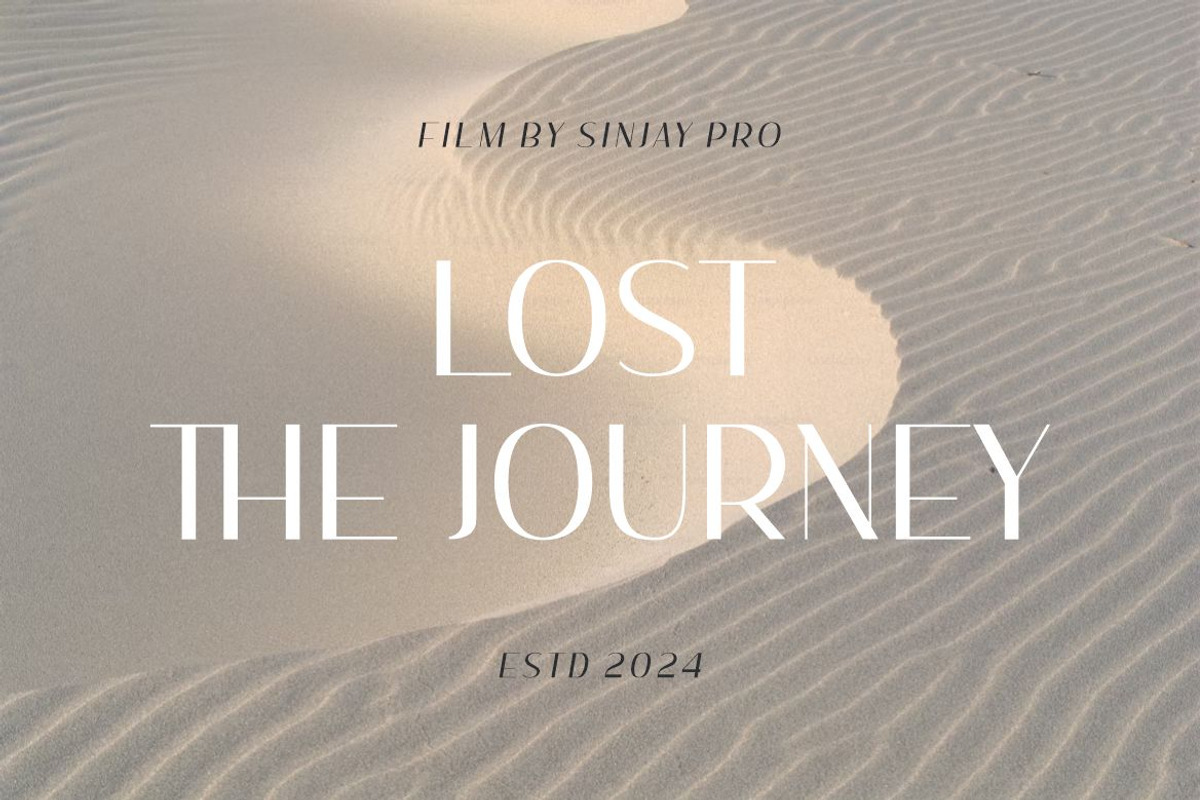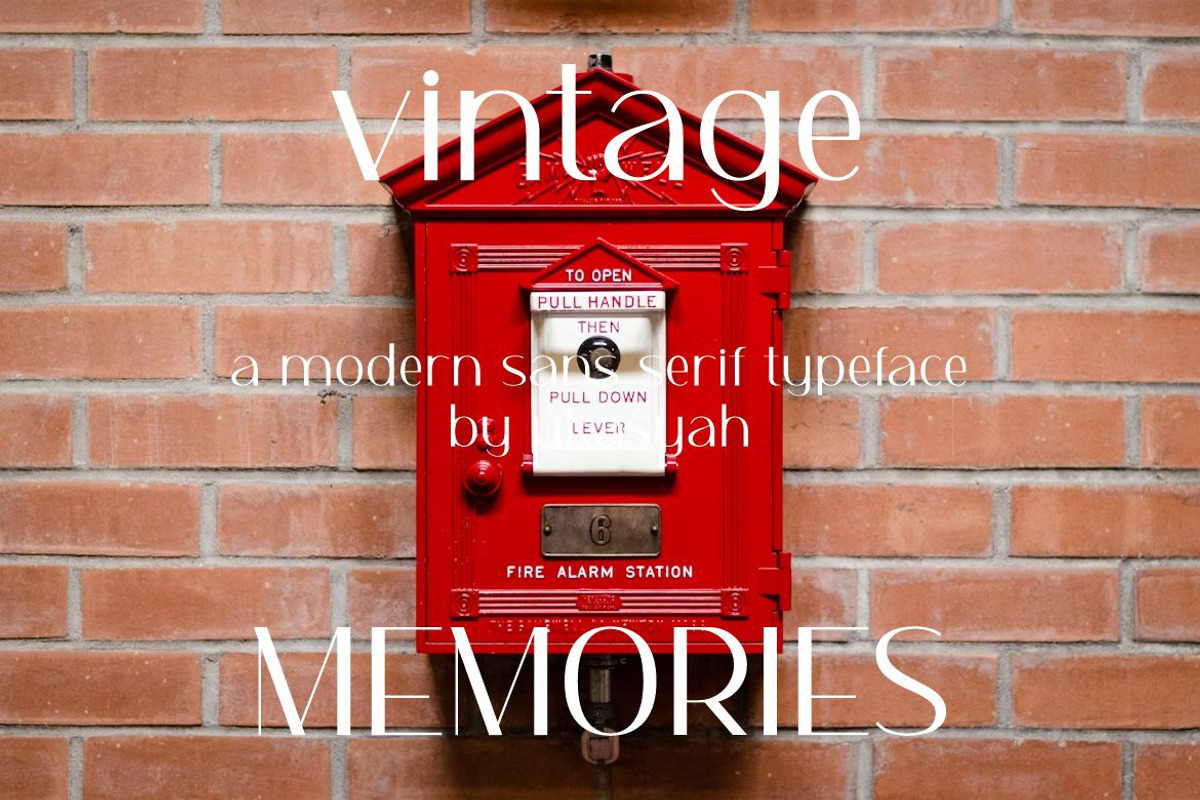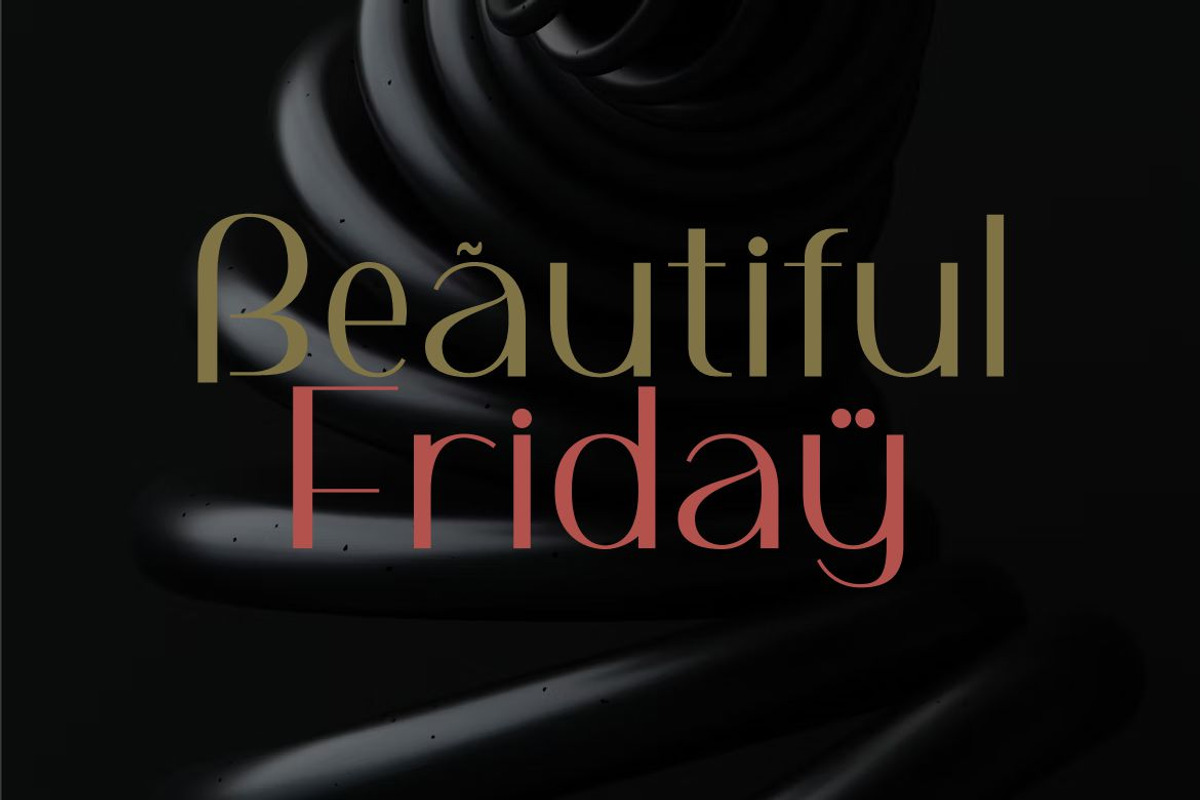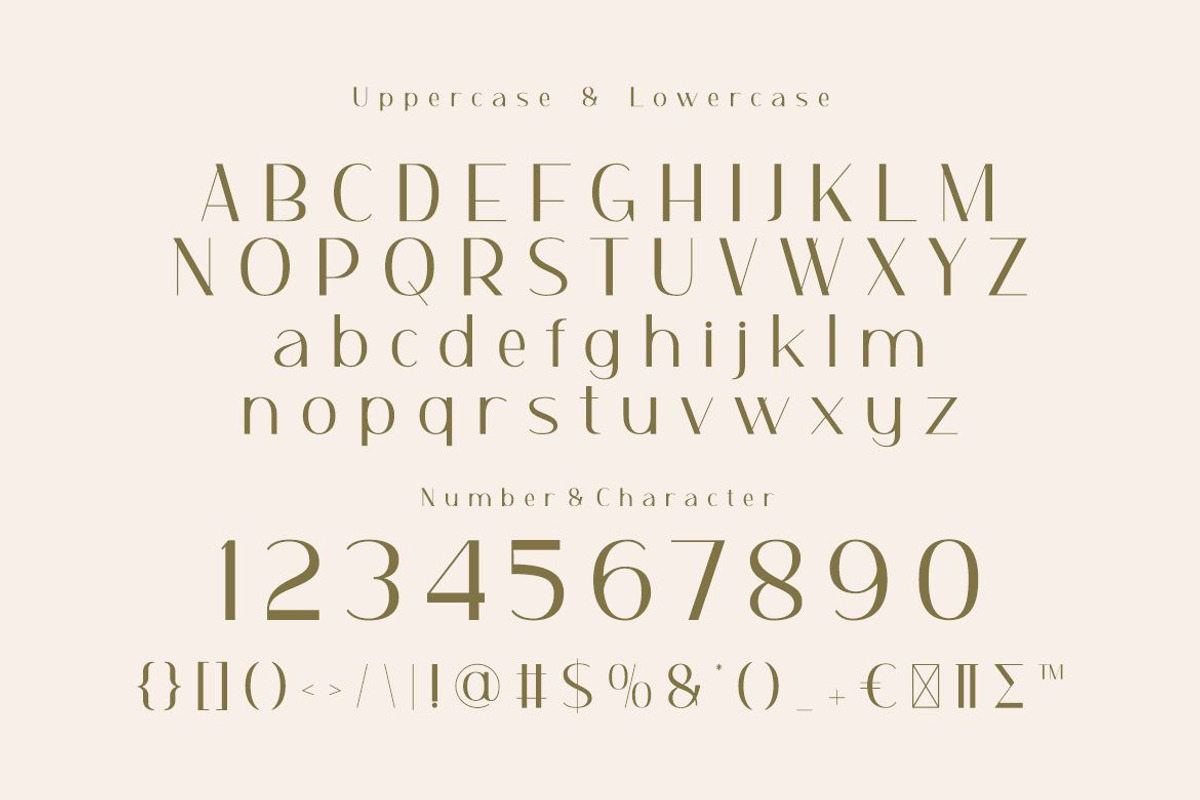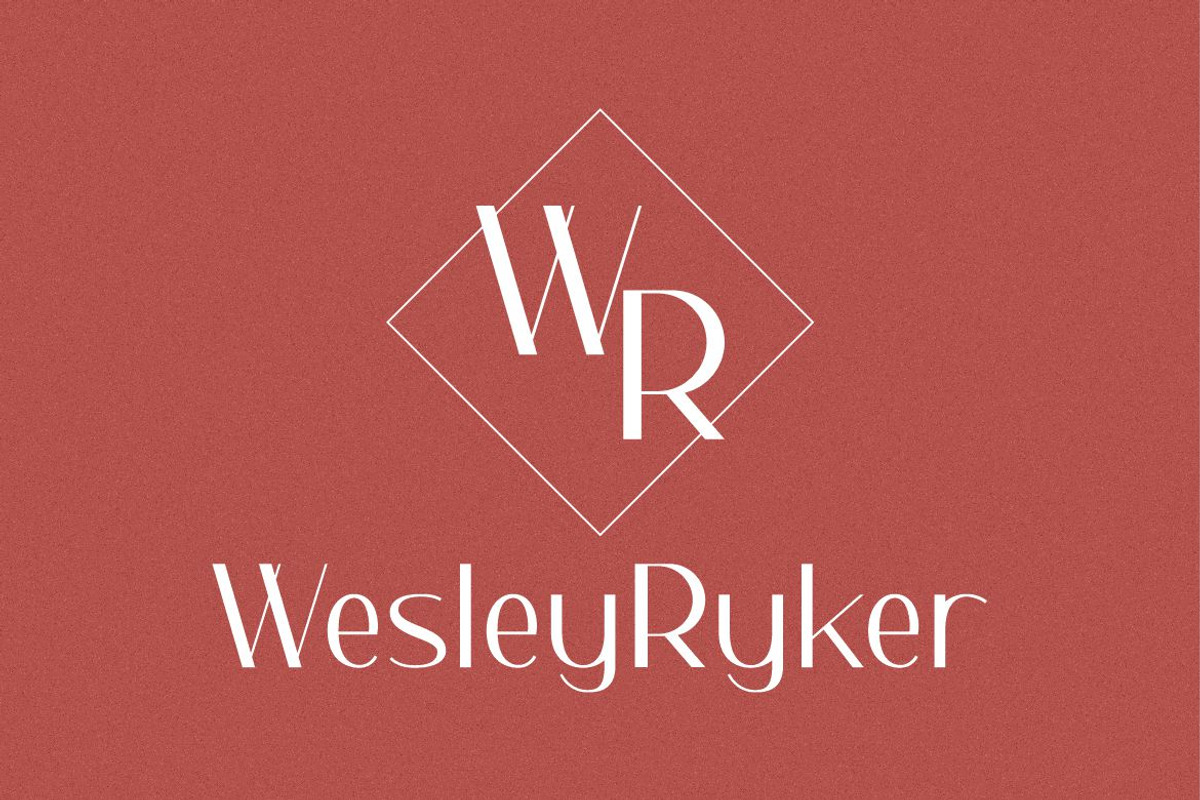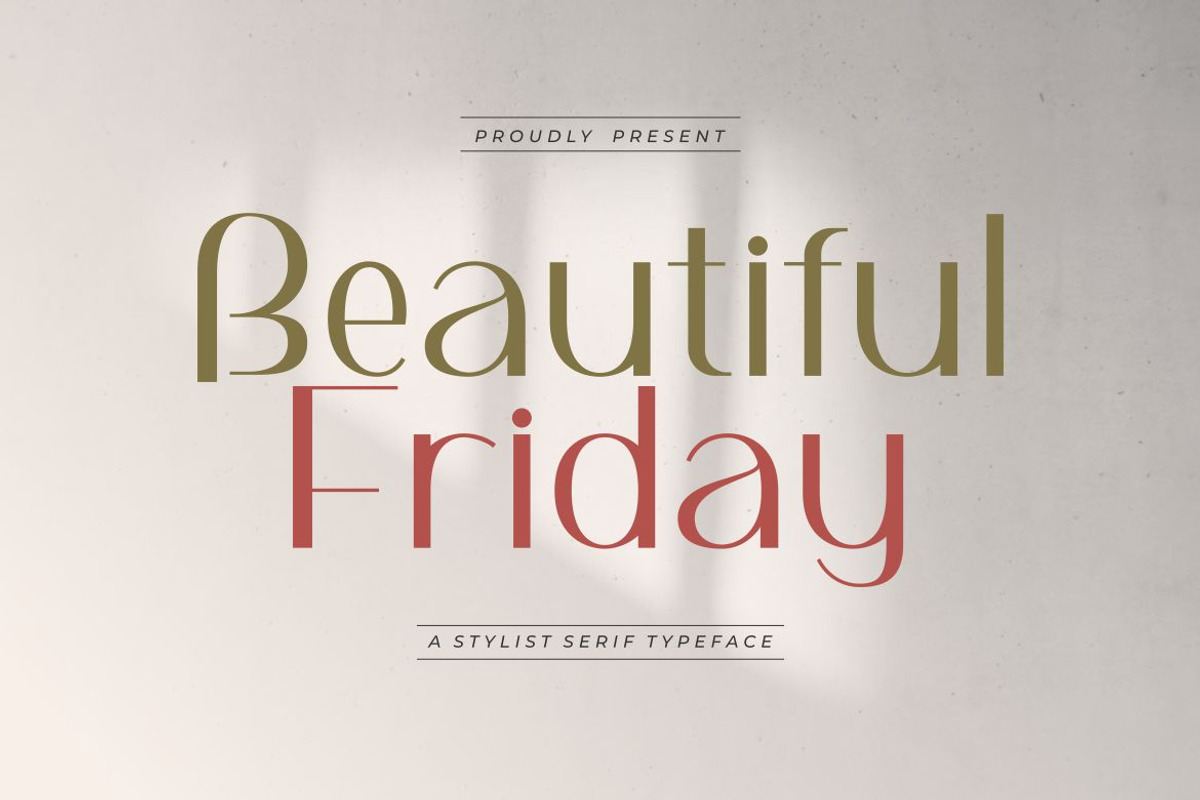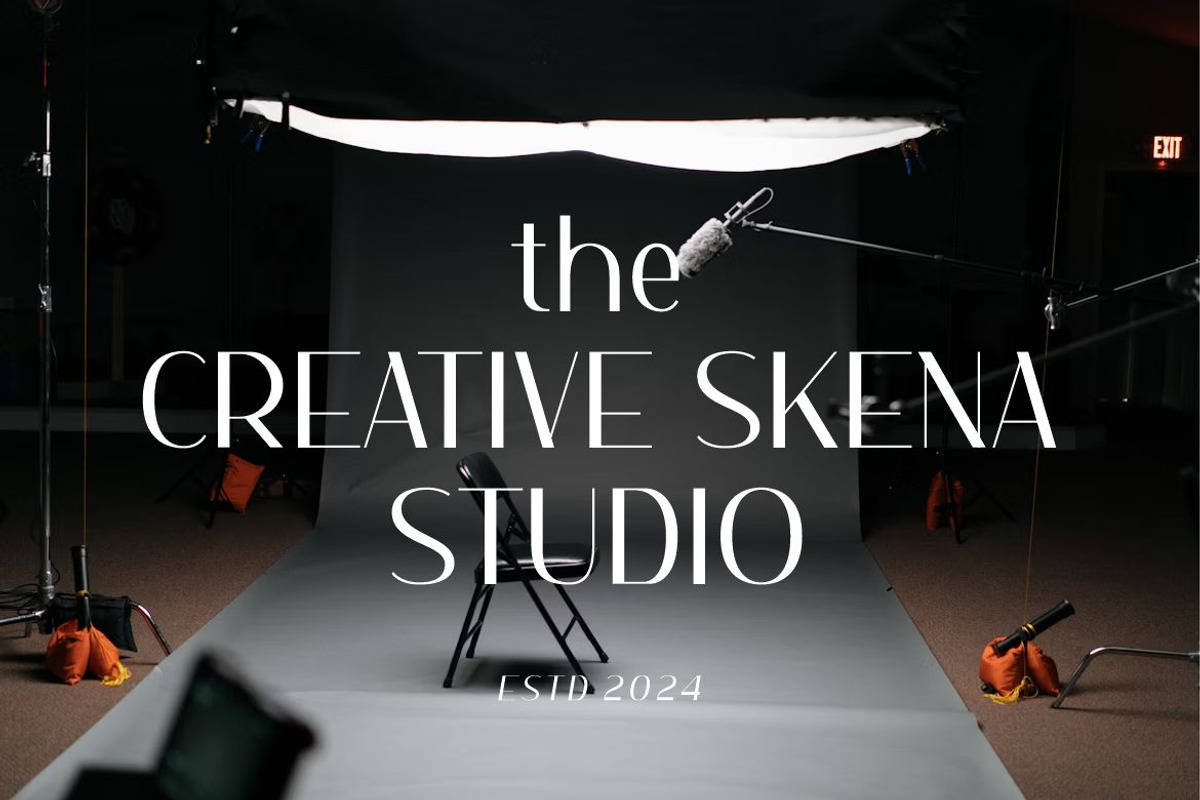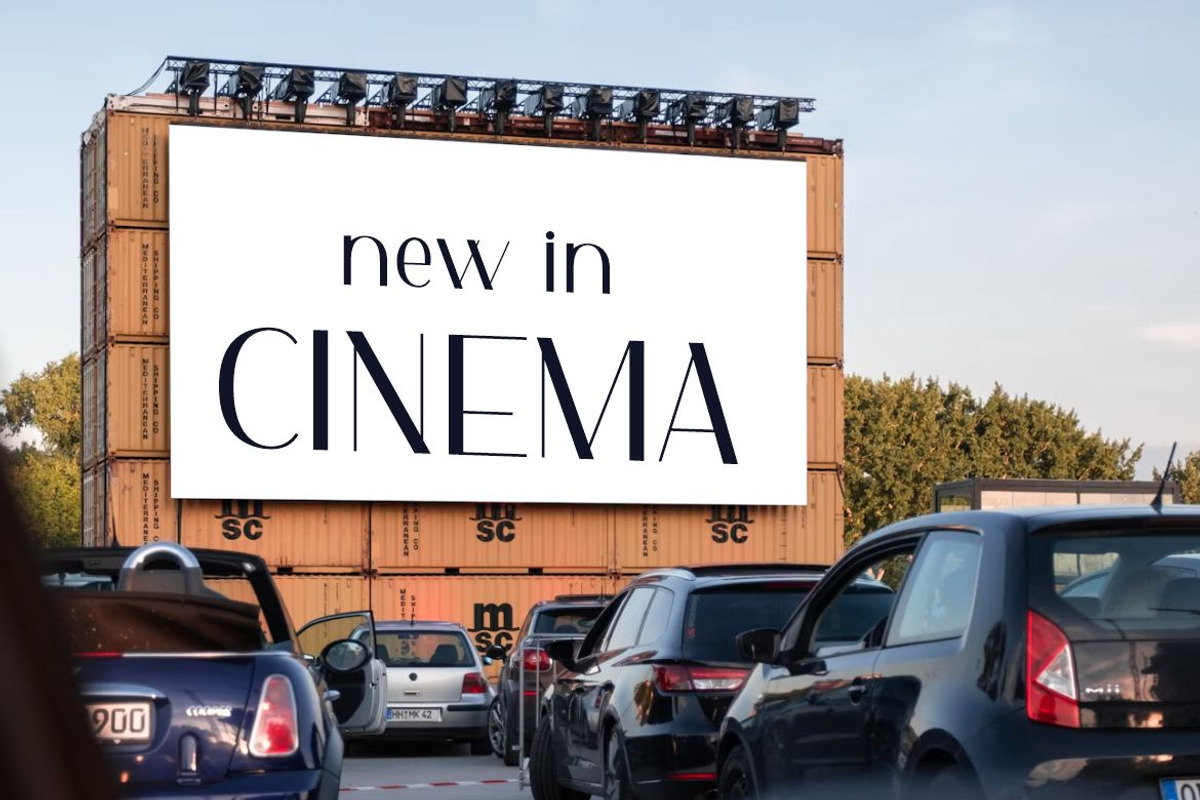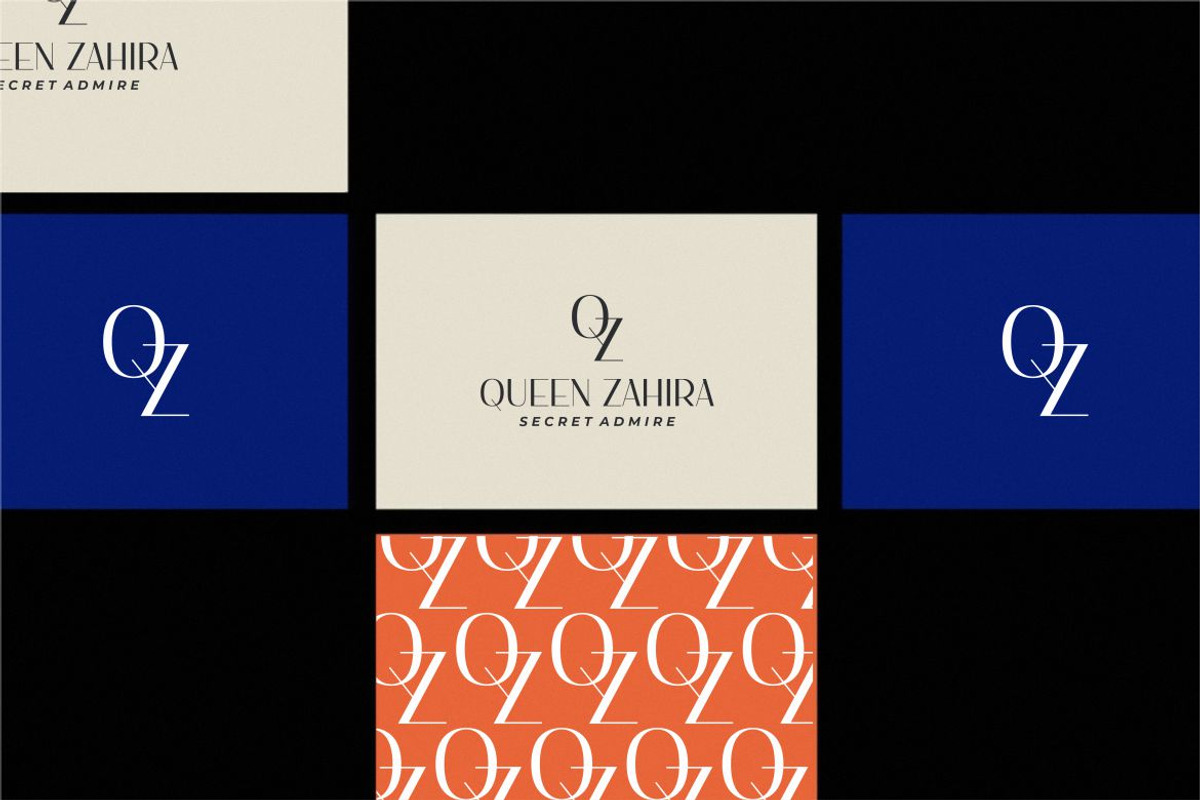
Beautiful Friday
Beautiful Friday font includes capital letters, numbers, and various punctuation marks. serif font with a stylish modern style. Created for posters, web design, branding, illustrations, badges and several other works